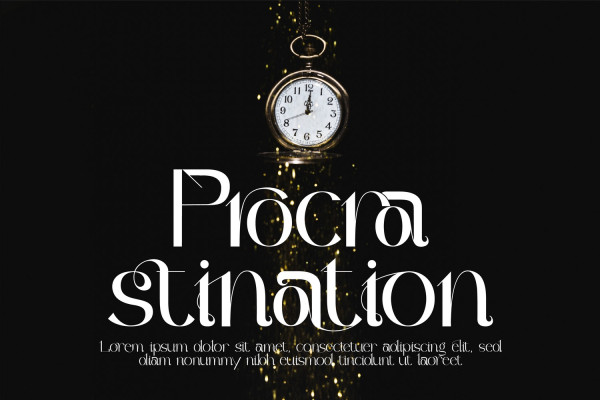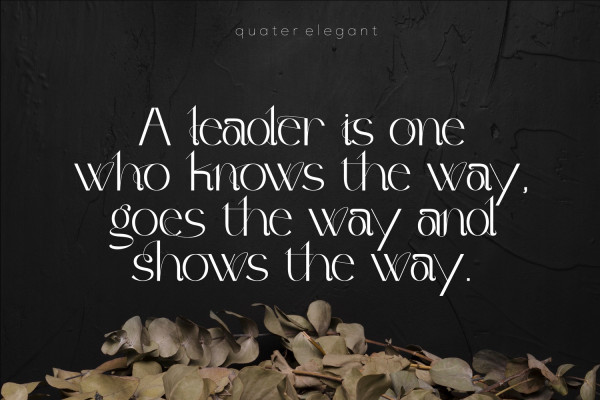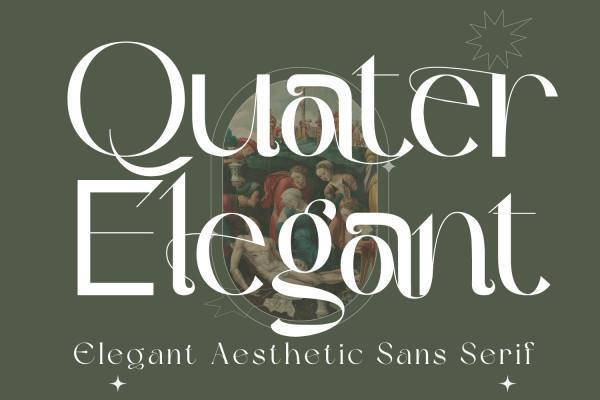
Quater Elegant Font
Quater Elegant Font – Classy Beauty Elegant Aesthetic Sans Serif – Expressive Romantic Feminine Lovely Font, is a bold and authentic display font. It offers a modern aesthetic, making it suitable for various branding and design projects. The font’s ligatures provide unique and stylish combinations of letterforms, enhancing the overall visual appeal of any logo or typographic design.
Quater Elegant was built with OpenType features and includes 100 ligatures, alternate, numbers, punctuation, and it also supports other languages.